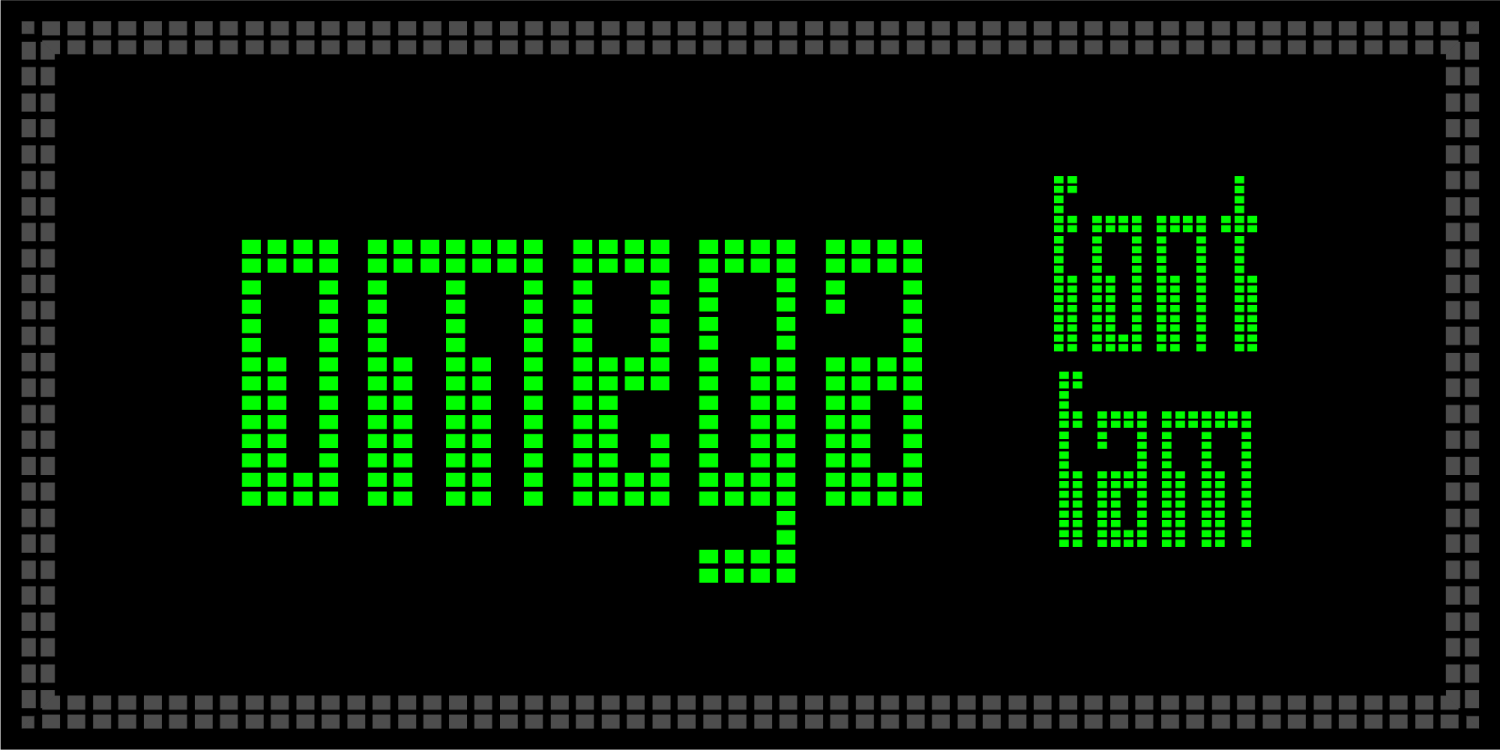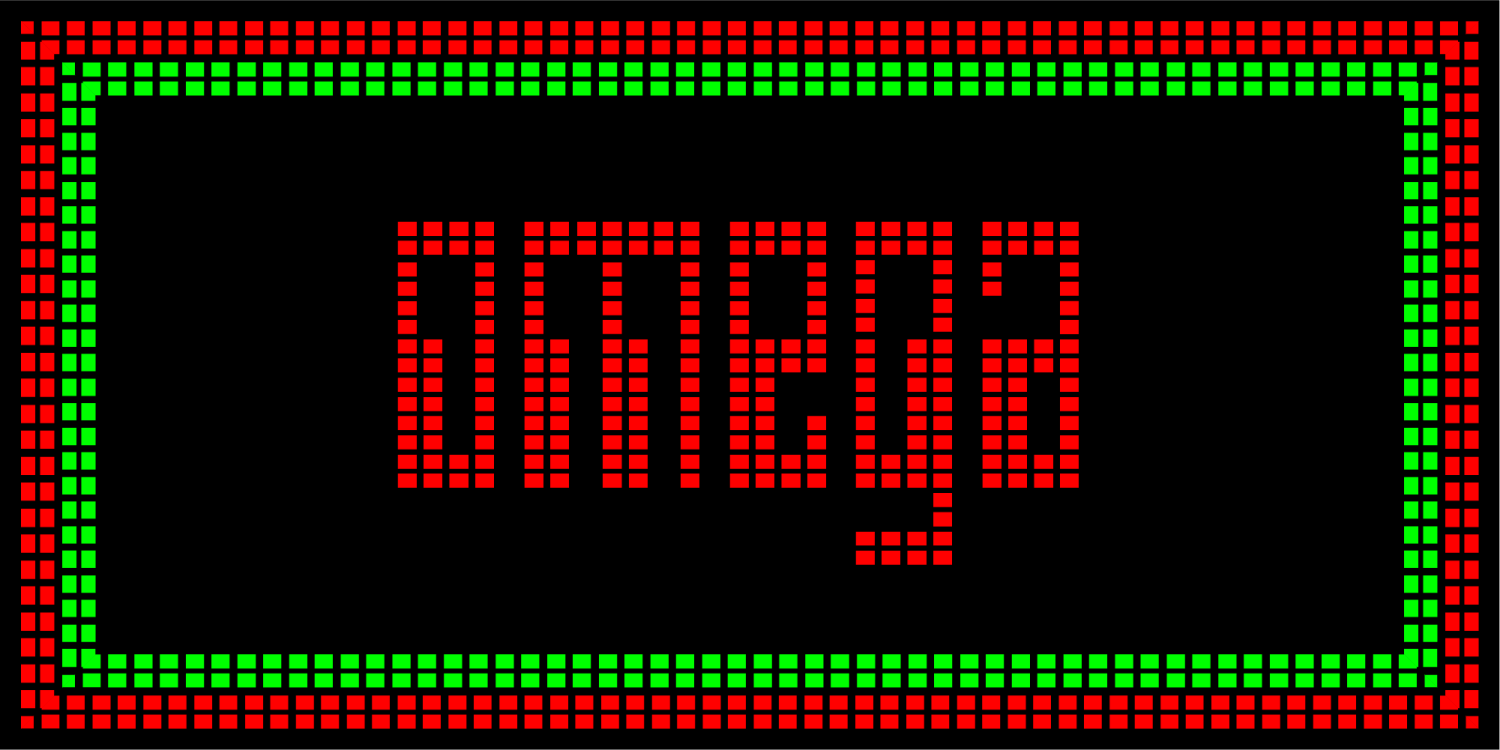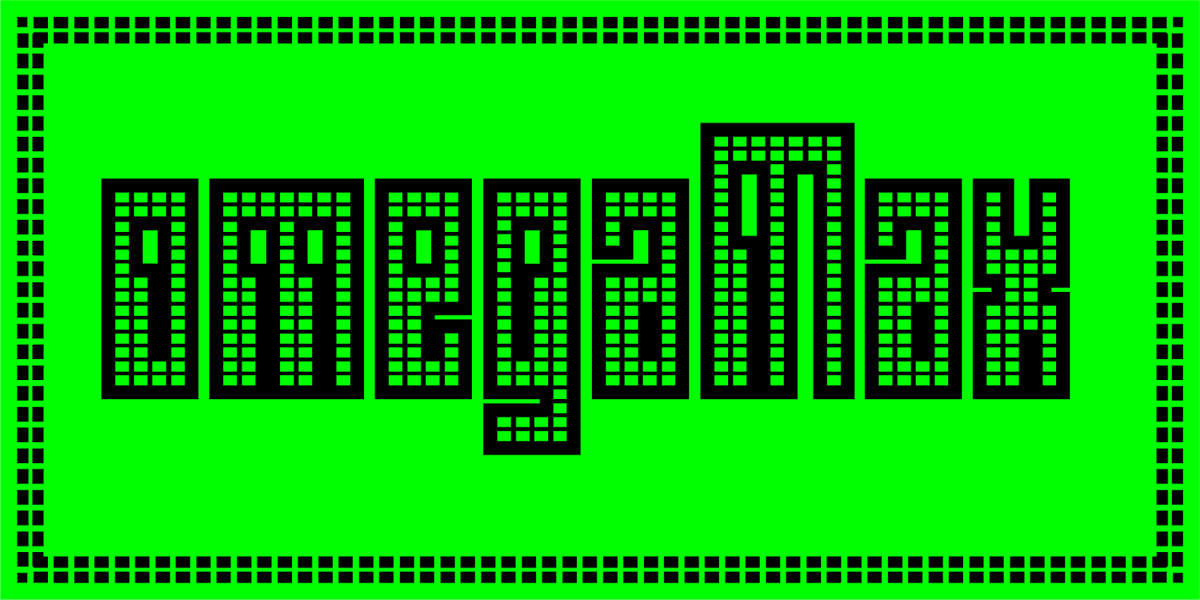
I just moved to san diego, california. Everywhere I go, I see flyers using my fonts. It makes me feel good. I went to Deja Vu Showgirls the other night and they used my Eight Track font for a VIP Party invite. Cool! So I make this font for all the kids using my fonts for promo flyers. There's lots of peeps out there making jungle.acid.triphop.house.dance club flyers. This is a font that will look good on there. There's also most of the european characters up in this, too. This is a huge font, people.